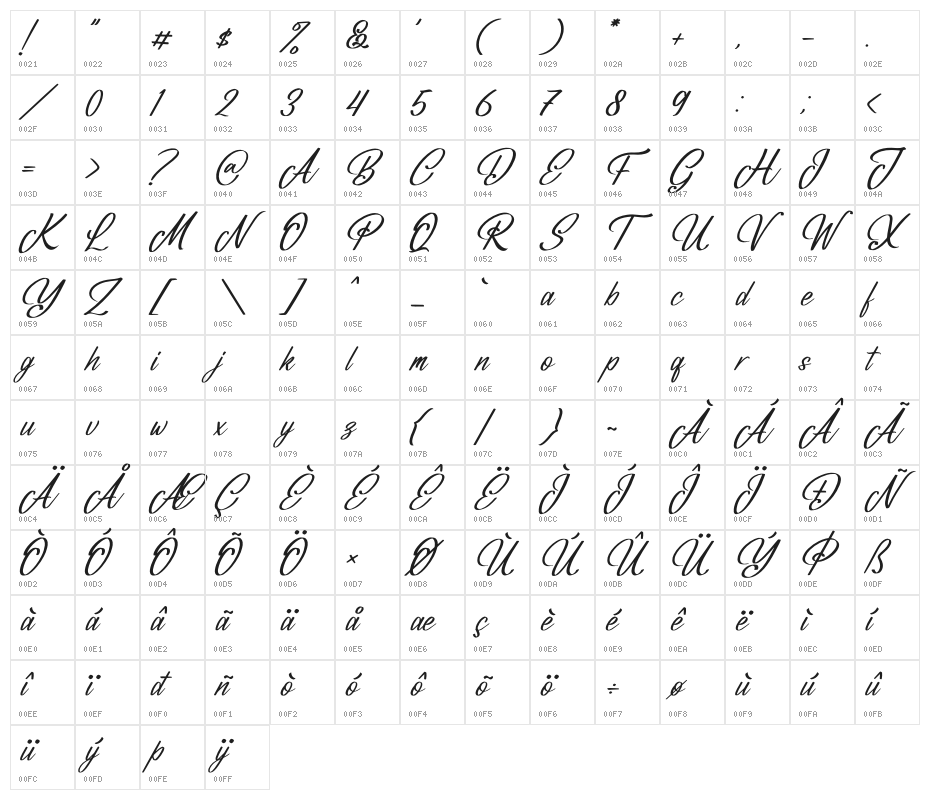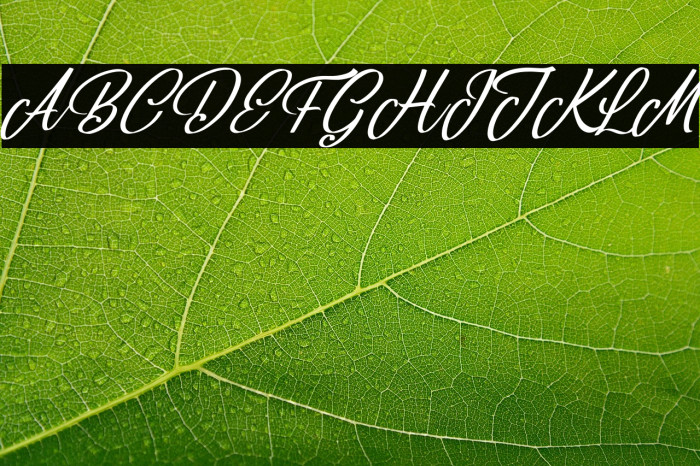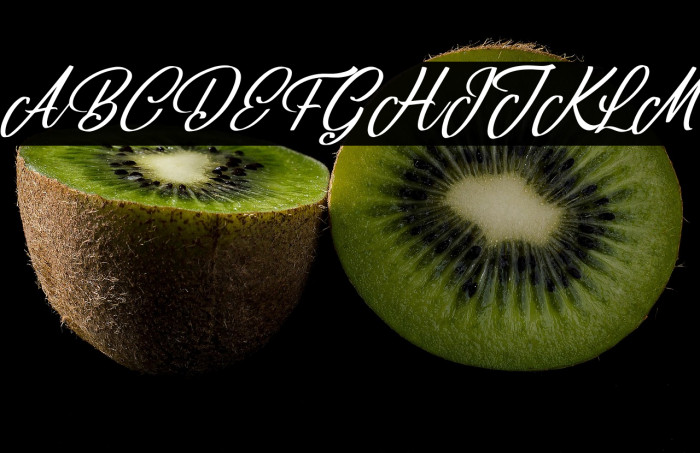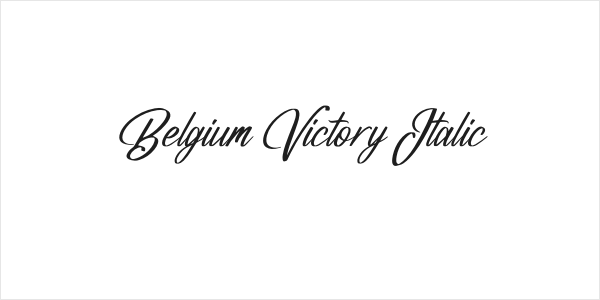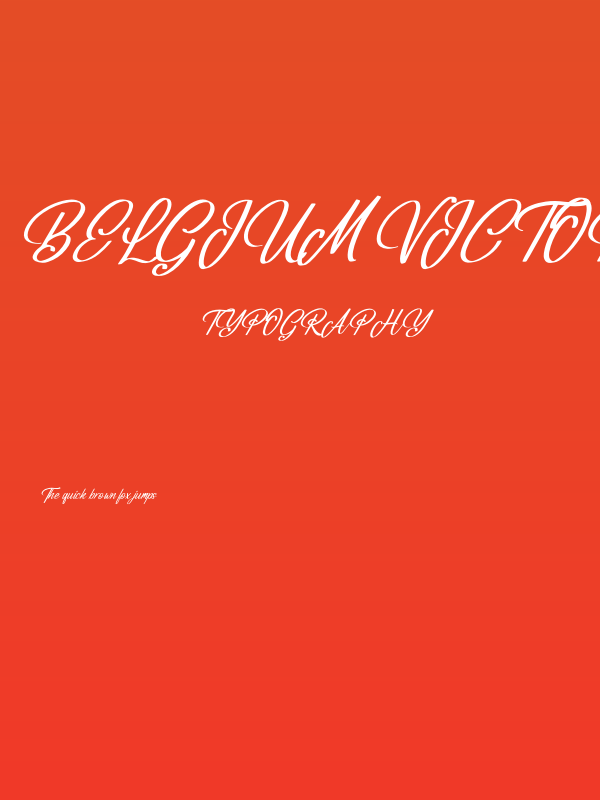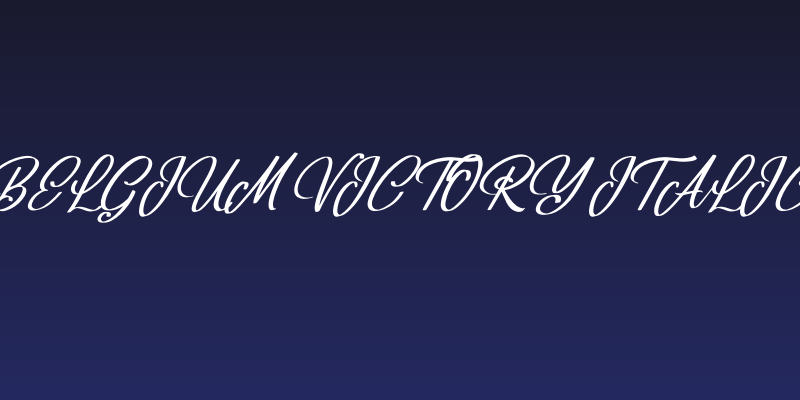
Belgium Victory Italic Font
Belgium Victory Italic Description
This elegant script font features a flowing, cursive style with a sophisticated and classic appeal. The characters are connected, creating a seamless and fluid appearance that mimics traditional handwriting. The uppercase letters are slightly more ornate, with flourishes that add a touch of elegance. The lowercase letters maintain a consistent slant, enhancing the italicized effect. Numbers and special characters are designed to match the overall style, ensuring a cohesive look across all text. The font's smooth curves and balanced proportions make it suitable for formal and decorative applications.
Overall StyleClassic
Use CaseLogos, Invitations, Decorative text
Proposed ProjectsIdeal for wedding invitations, elegant branding, greeting cards, and formal event programs.